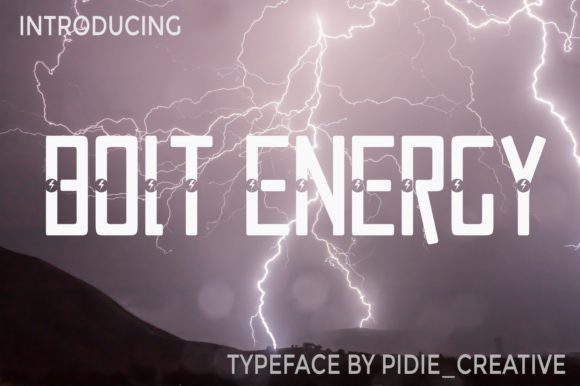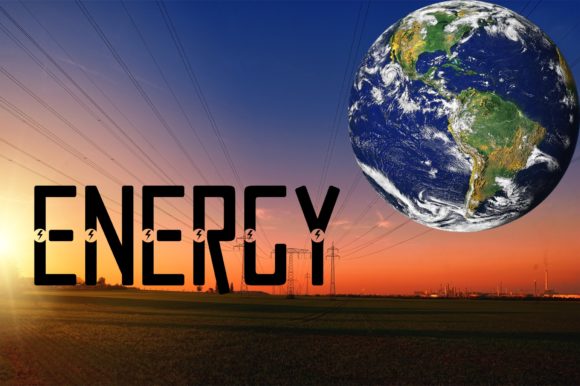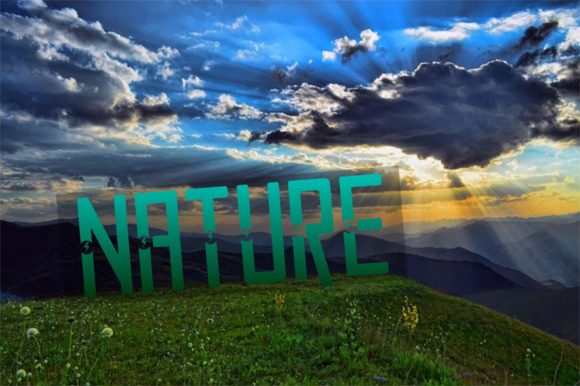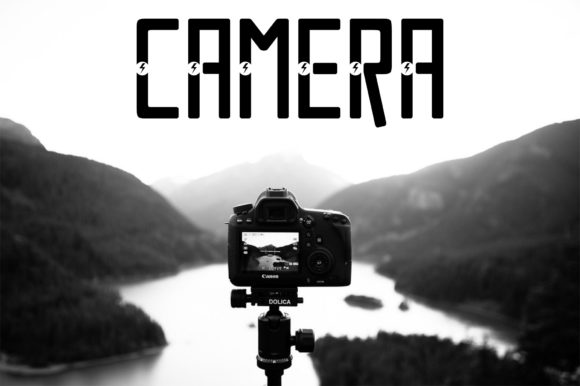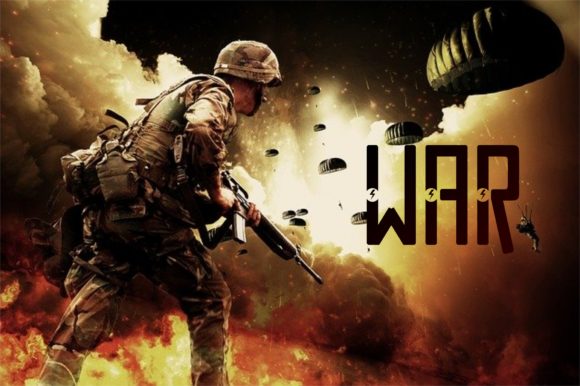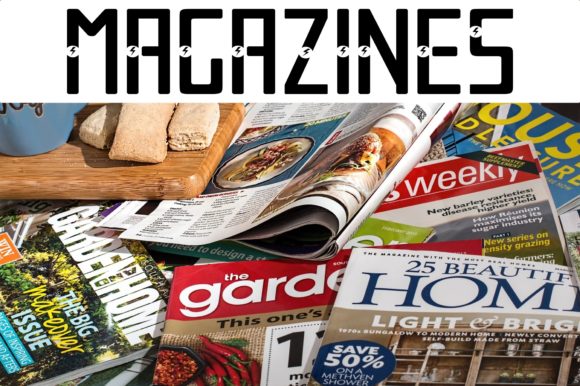
Bolt Electric
About Bolt Electric Font
Bolt Electric is a cool and modern display font. It has a techno and unique vibe and it will make each of your design ideas stand out!